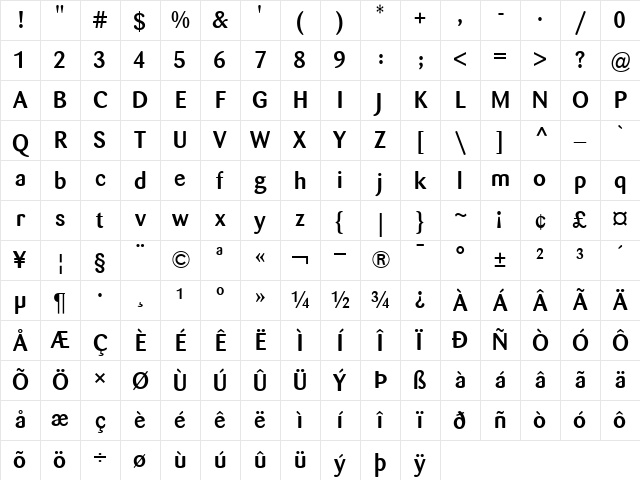
Barmeno-Medium Medium
Design Context for Barmeno-Medium
Barmeno-Medium is a composed and adaptable typeface that performs quietly and consistently across a wide range of design contexts.
Pro Tip: Use Barmeno-Medium in both headline and body roles to test its range before committing to a single application.